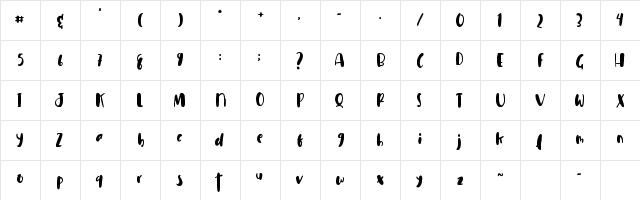
Cuties Magenta Demo Regular
Design Context for Cuties Magenta Demo Typeface
Cuties Magenta Demo is a composed and adaptable typeface that performs quietly and consistently across a wide range of design contexts.